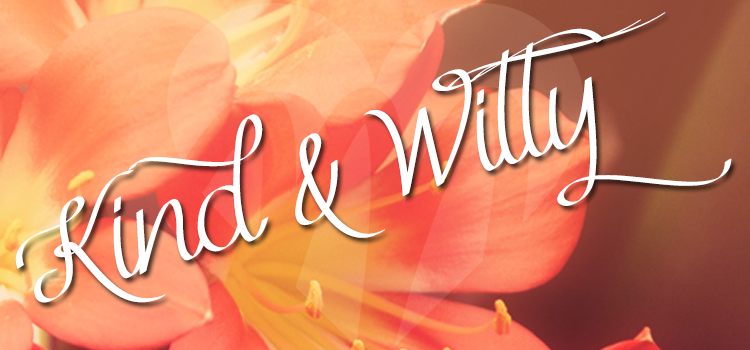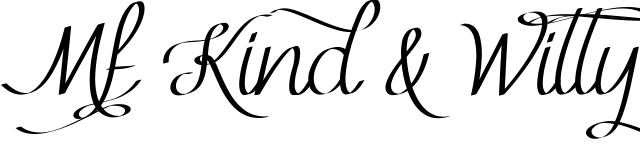
Mf Kind & Witty by Misti's Fonts
"Elegant script font with playful personality, ideal for creative projects, featuring ornate swashes for added flair."